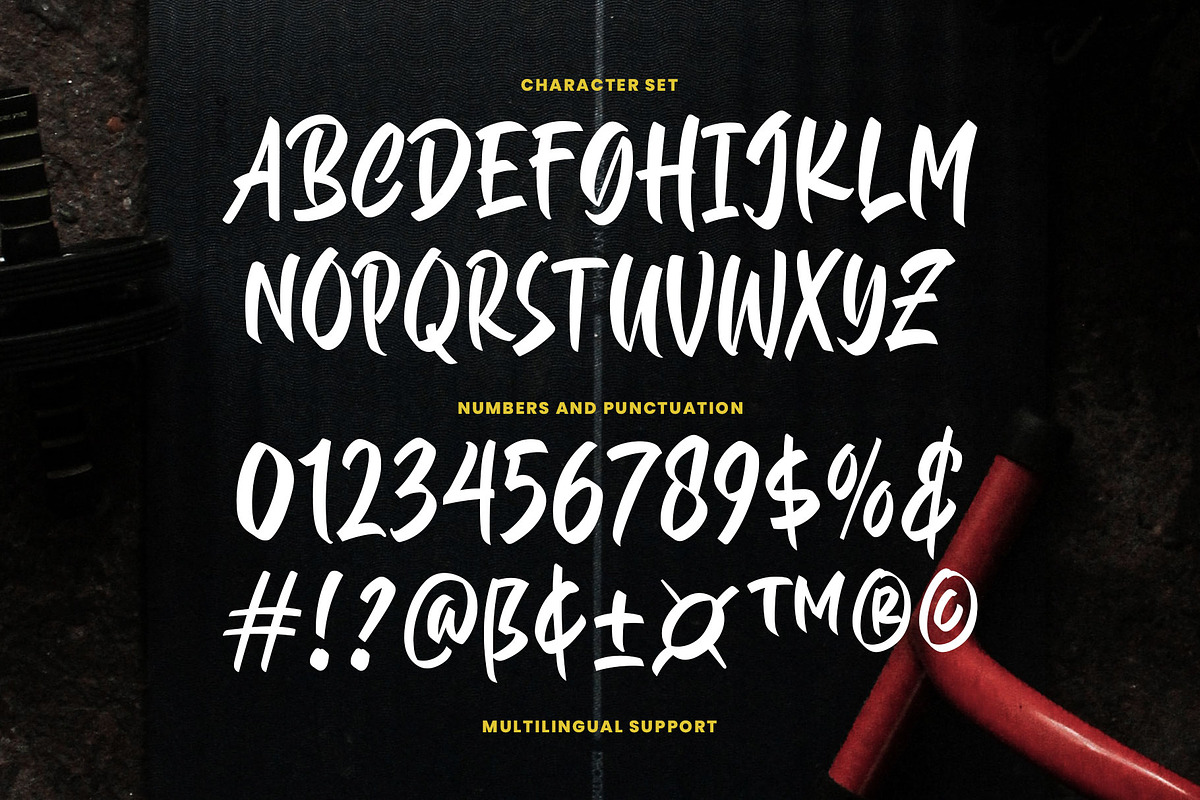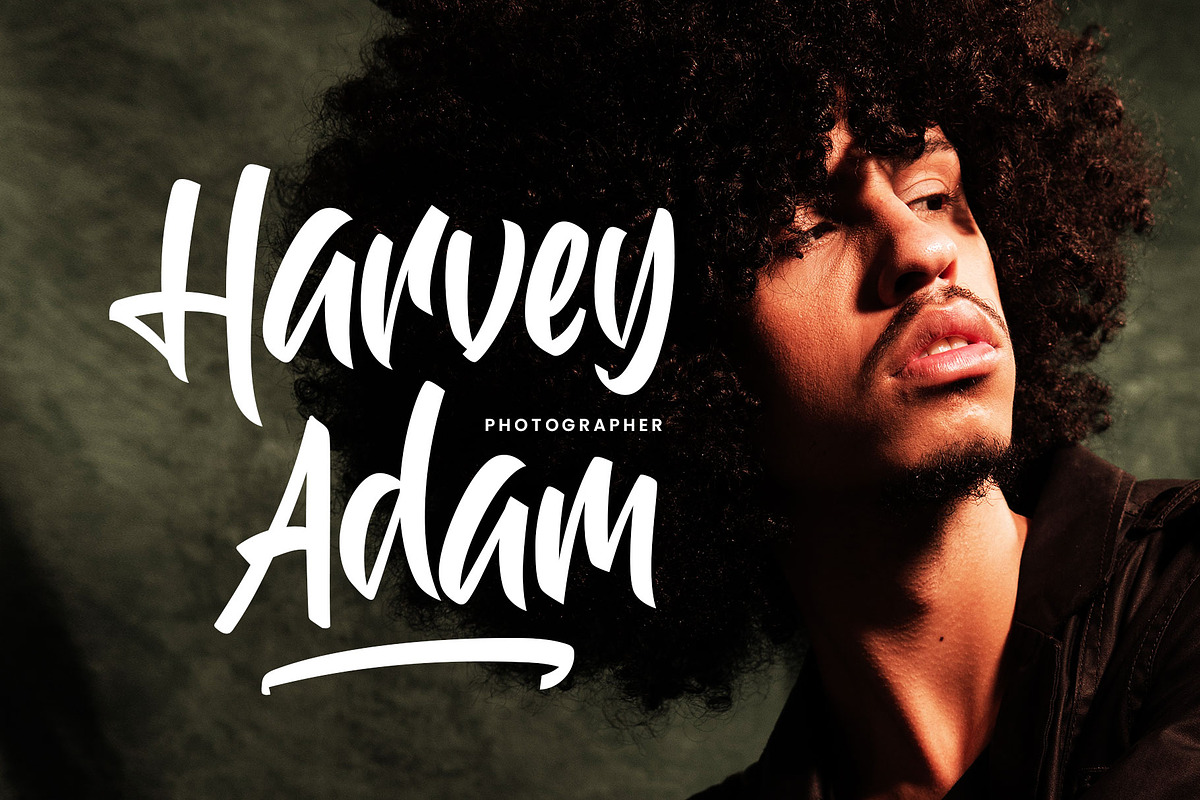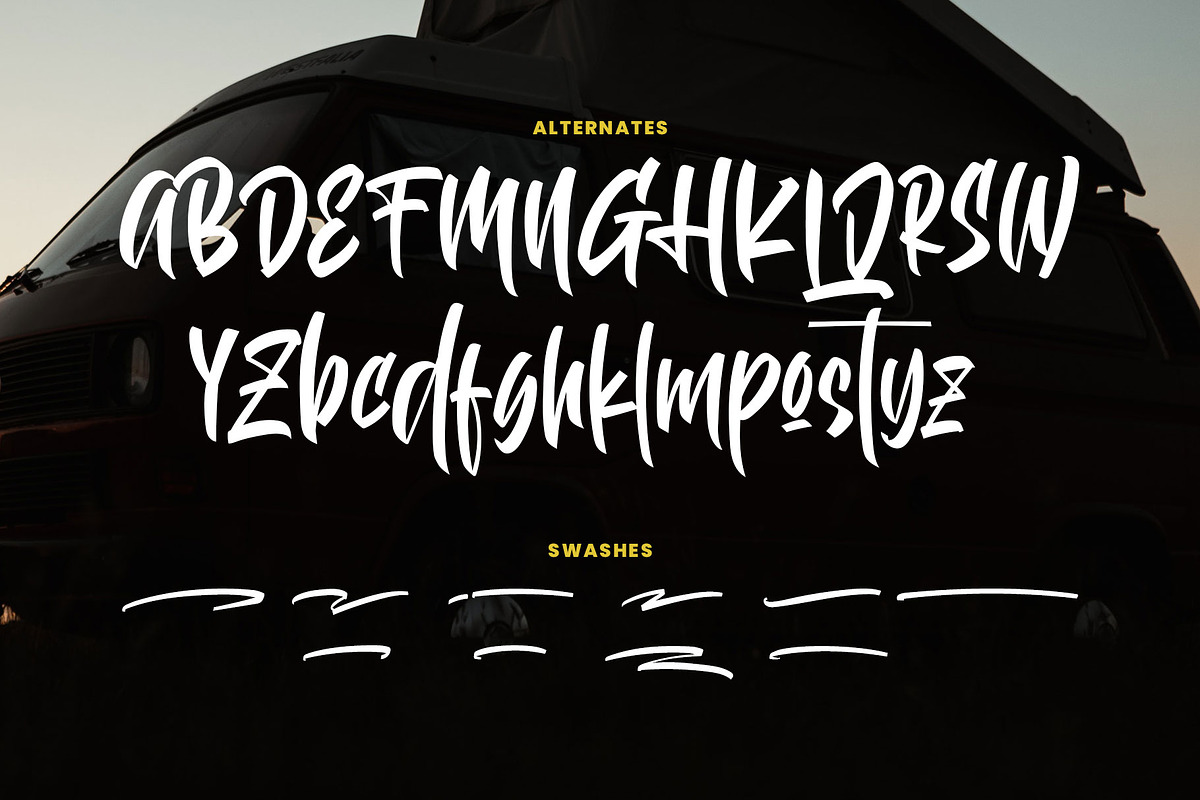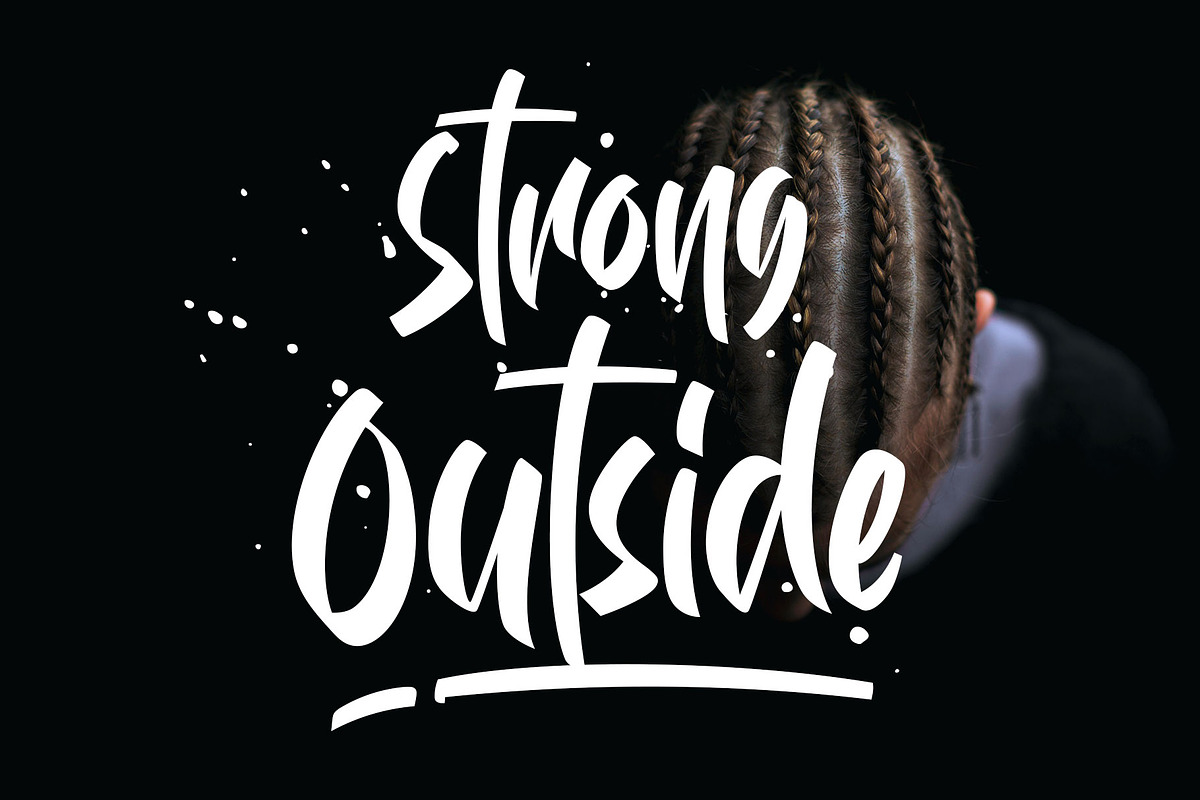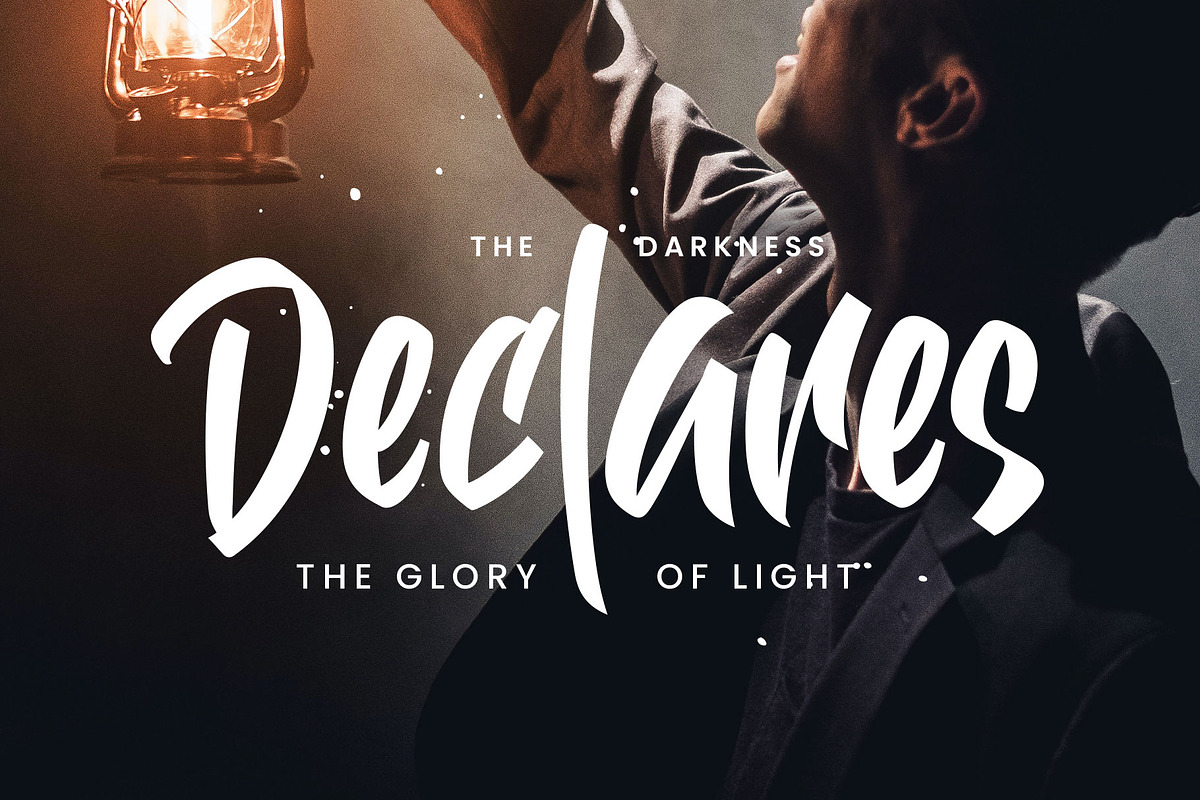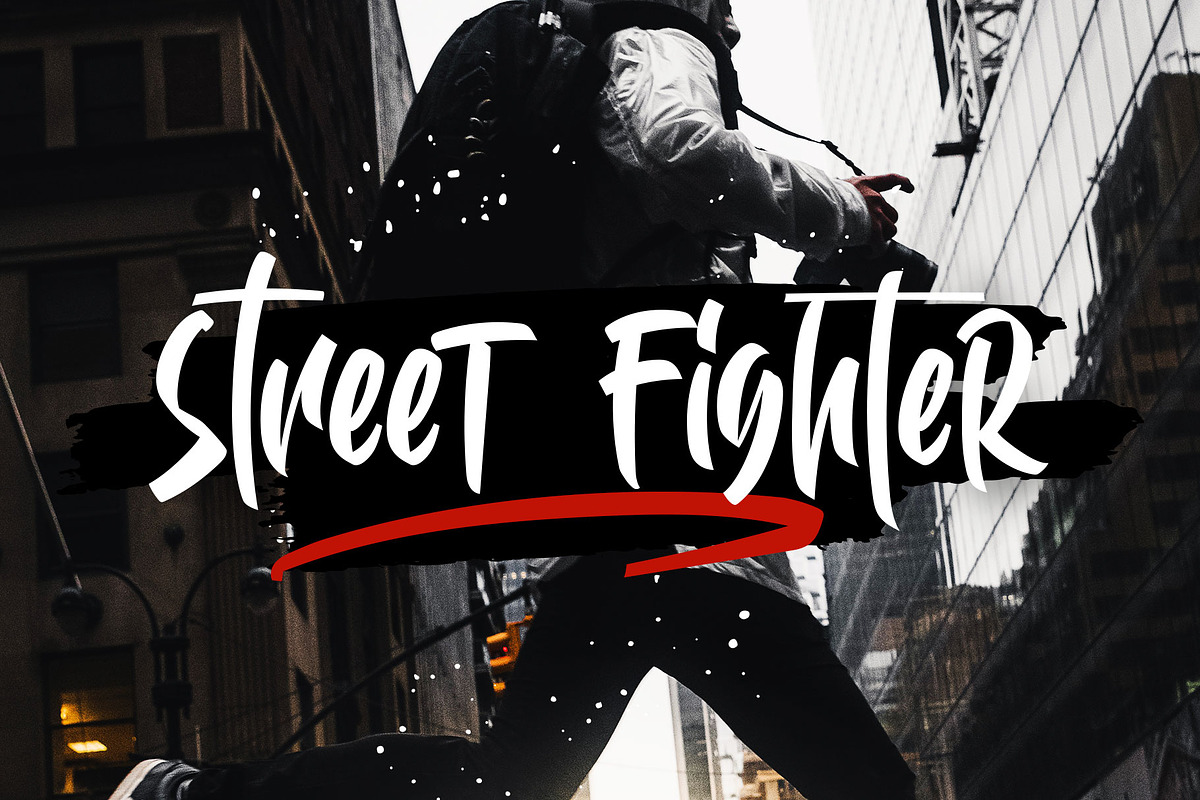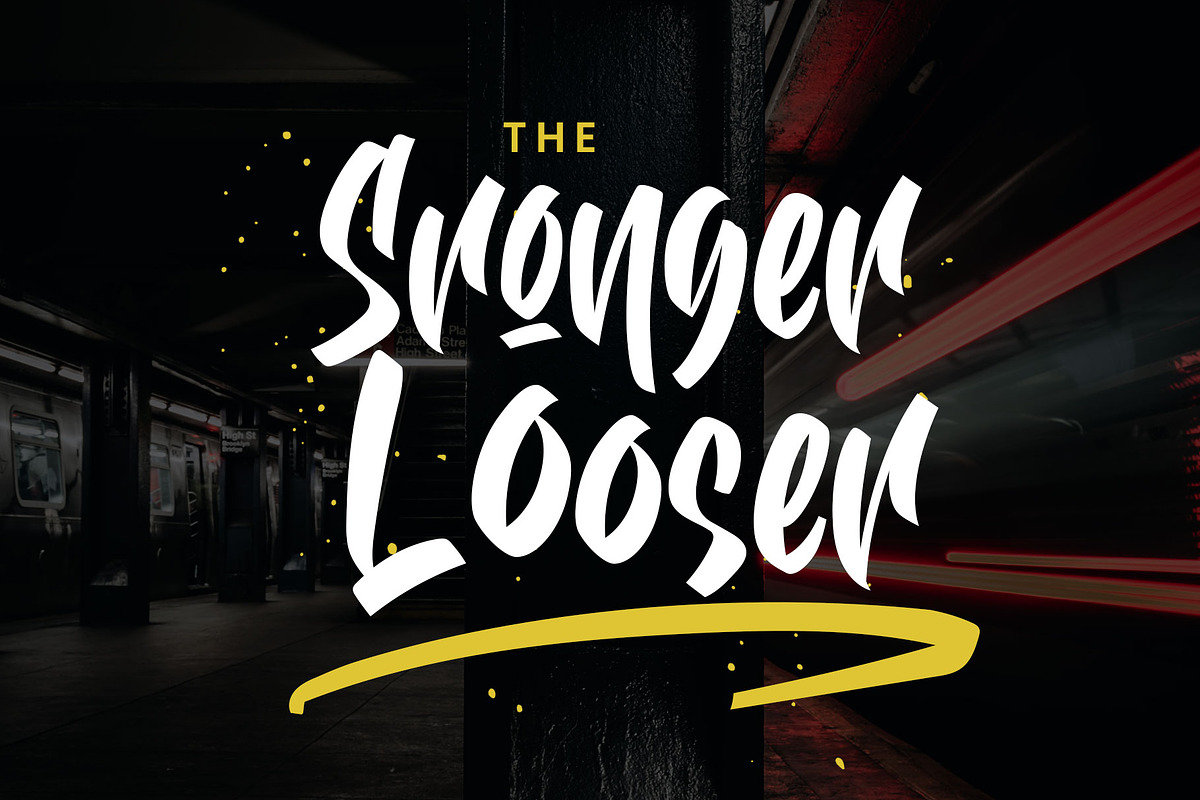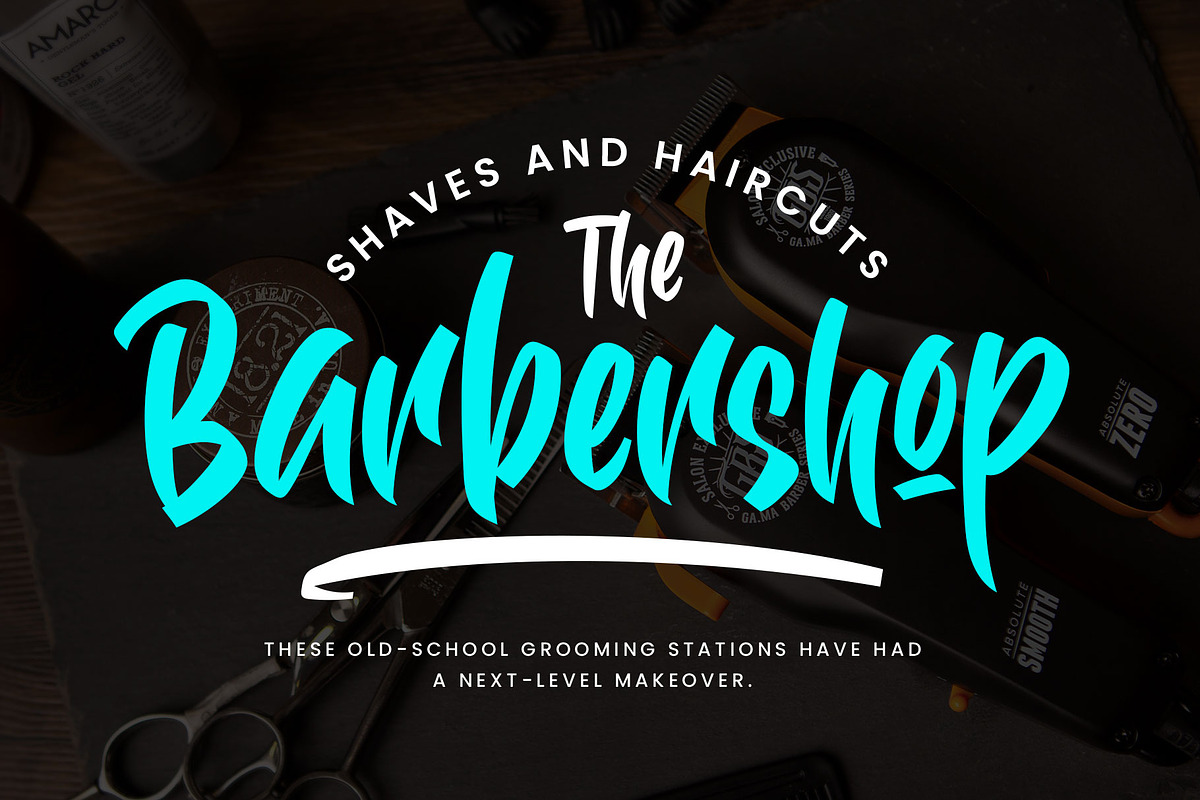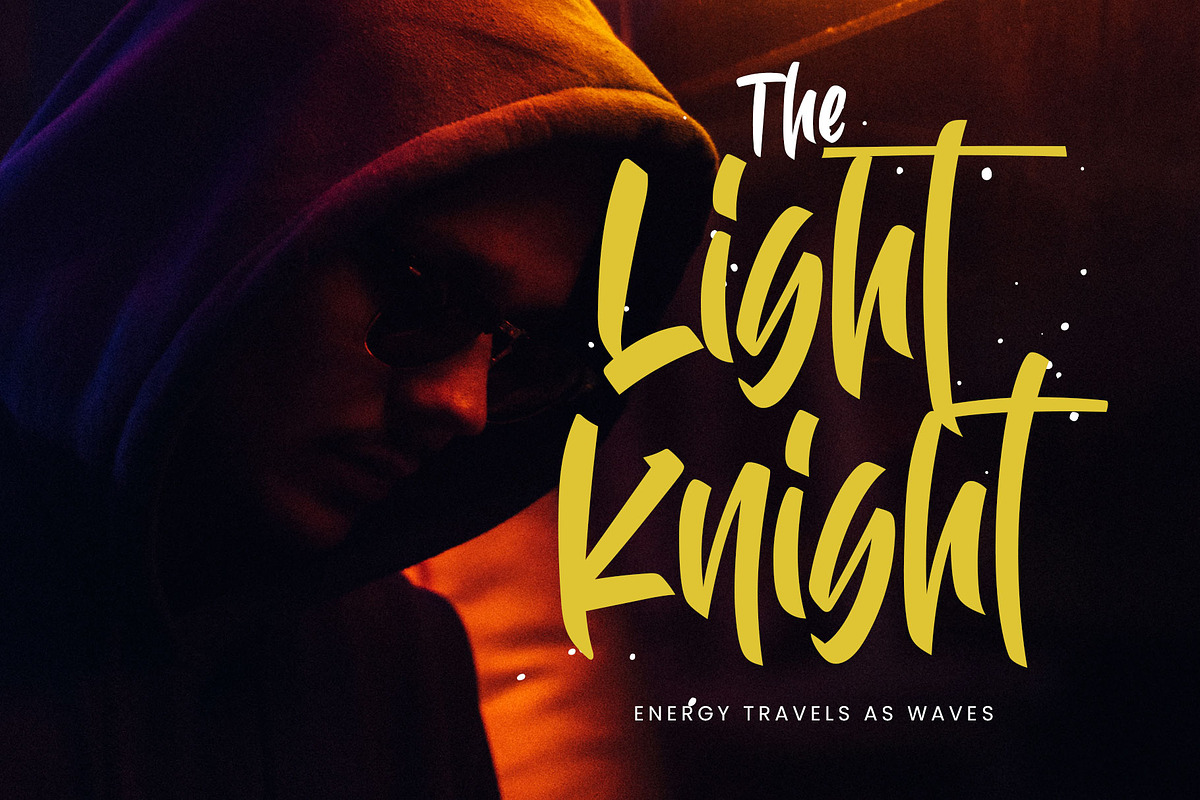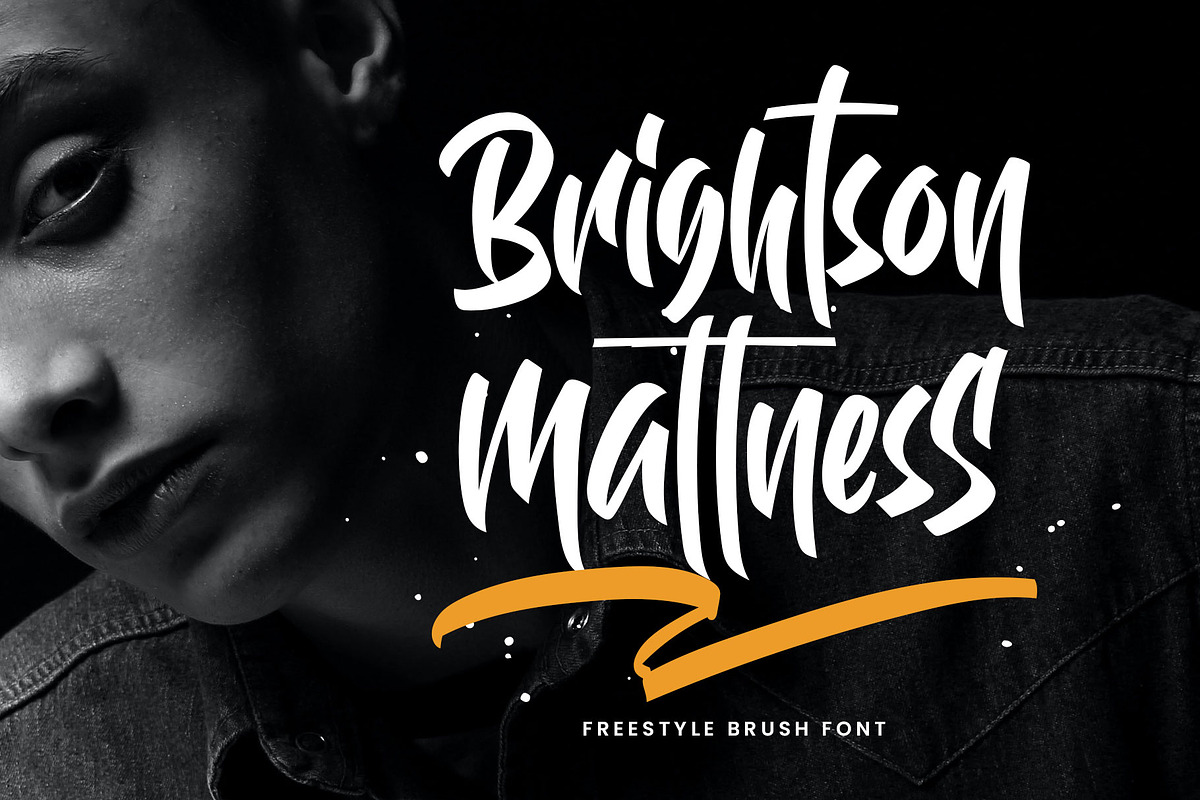
Brightson Mattness
Introducing Brightson Mattness: The Ultimate Freestyle Brush Font for the Cool and Energetic! The font that's all about unleashing your creative wild side. This freestyle brush font is injecting a vibrant and playful vibe into every stroke.
Brightson Mattness isn't your average font. It's a burst of energy that brings your posters, logos, motion graphics, packaging, and apparel to life. Packed with special characters and swashes, it adds that extra punch of personality to your designs.
- Numbers & Symbols
- Stylistic alternates